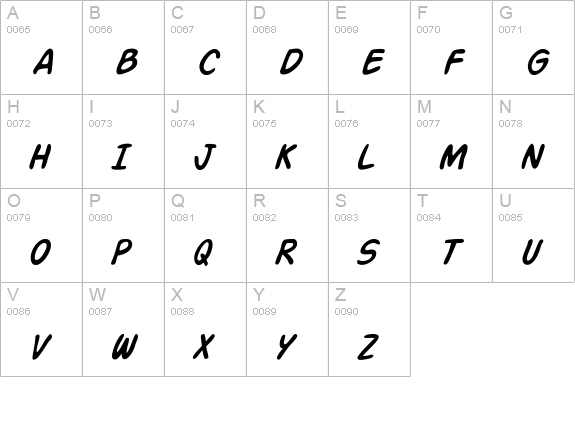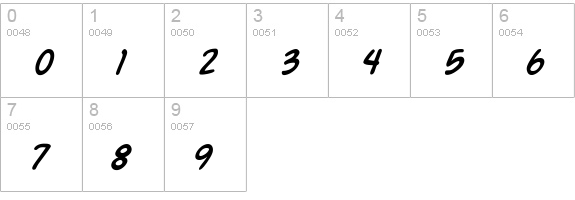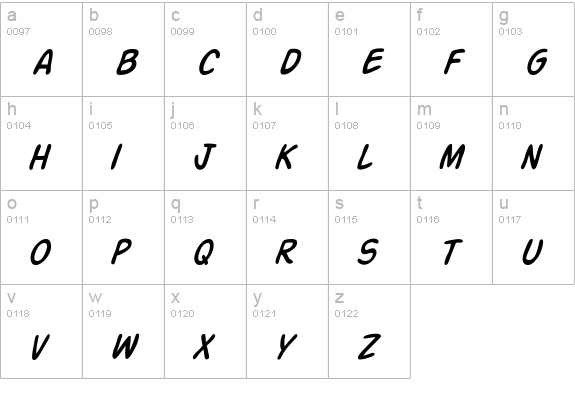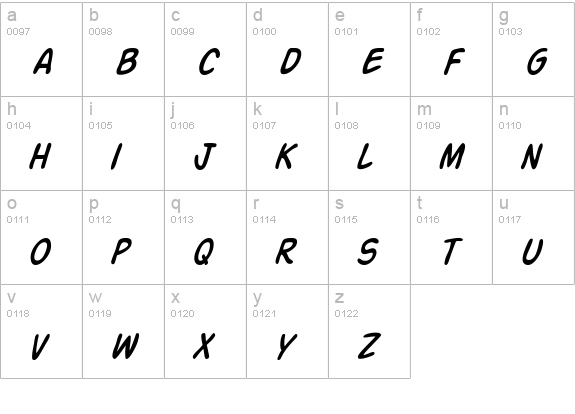
Action Man Italic is a distinctive, italic variant in the Action typeface family \xE2\x80\x94 well suited to design and typography projects.
Introducing Action Man Italic font, a sleek and dynamic typeface designed to bring energy and movement to your projects. With its bold and italicized style, this font exudes a sense of strength and action, making it perfect for headlines, titles, and branding materials. The sharp angles and modern look of Action Man Italic create a sense of excitement and urgency, perfect for grabbing attention and making a statement. Best of all, Action Man Italic font is available for free download at FontsMarket.com. This means you can easily add this powerful font to your design arsenal without breaking the bank. Whether you're working on a poster, website, or logo, Action Man Italic font will help your text stand out and make a lasting impression. Download it today and unleash the power of this dynamic font in your next project!